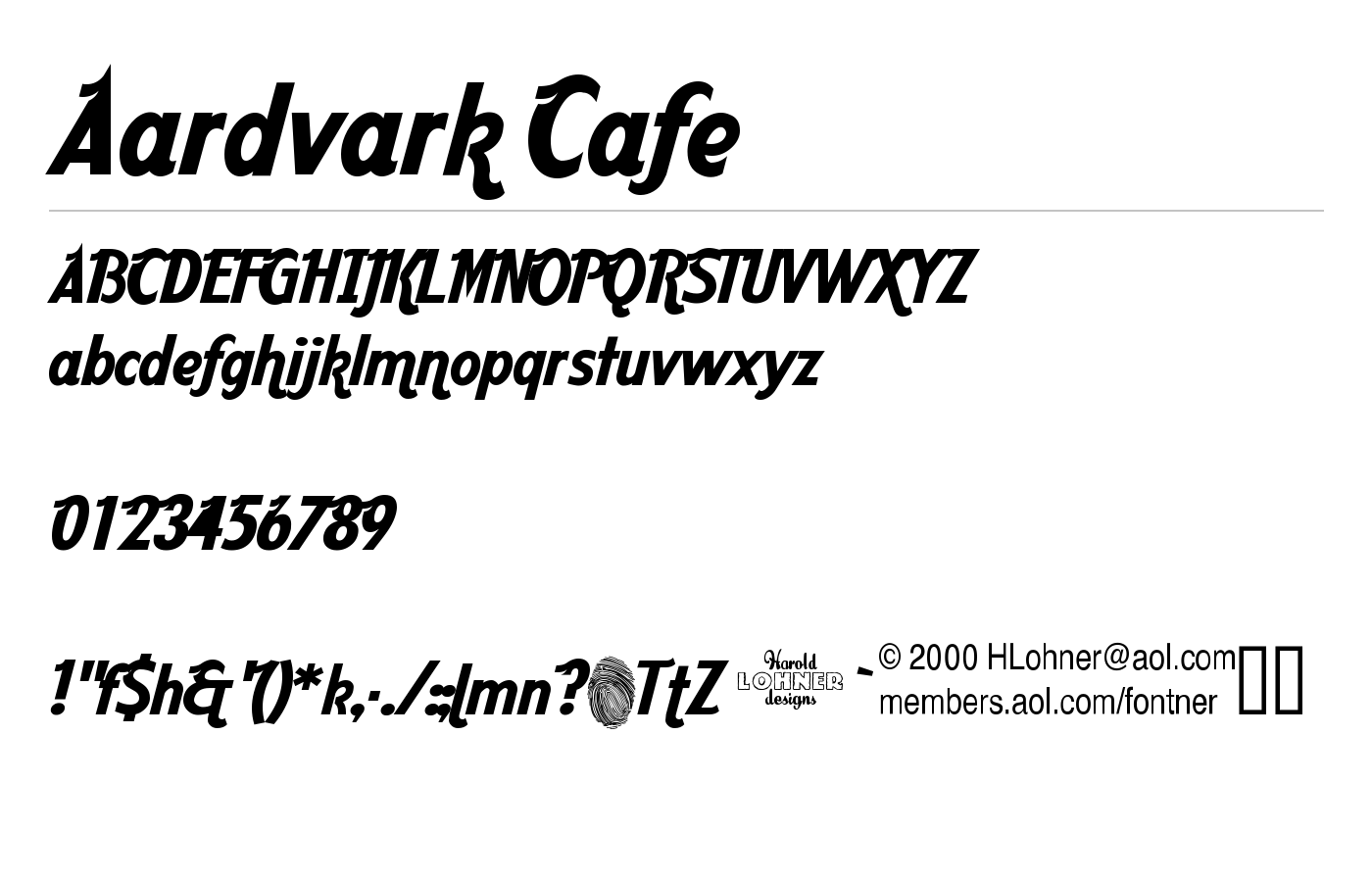
Aardvark Cafe is a bold, italic serif font with a strong slant and distinctive angled serifs that give it a dynamic, energetic feel. Its high contrast strokes and unique letterforms, such as single-story a and sharp, bracketed serifs, make it ideal for eye-catching headlines, logos, and creative branding where a vintage yet lively personality is desired. This font works well in contexts that need a stylish, confident presence with a touch of retro flair.
Aardvark Cafe Font